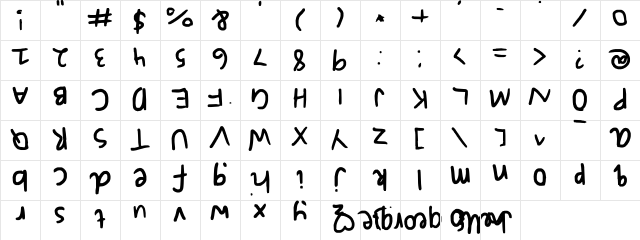
upside down surprise by georgia Regular
Design Context for upside down surprise by georgia Typeface
upside down surprise by georgia is a composed and adaptable typeface that performs quietly and consistently across a wide range of design contexts.